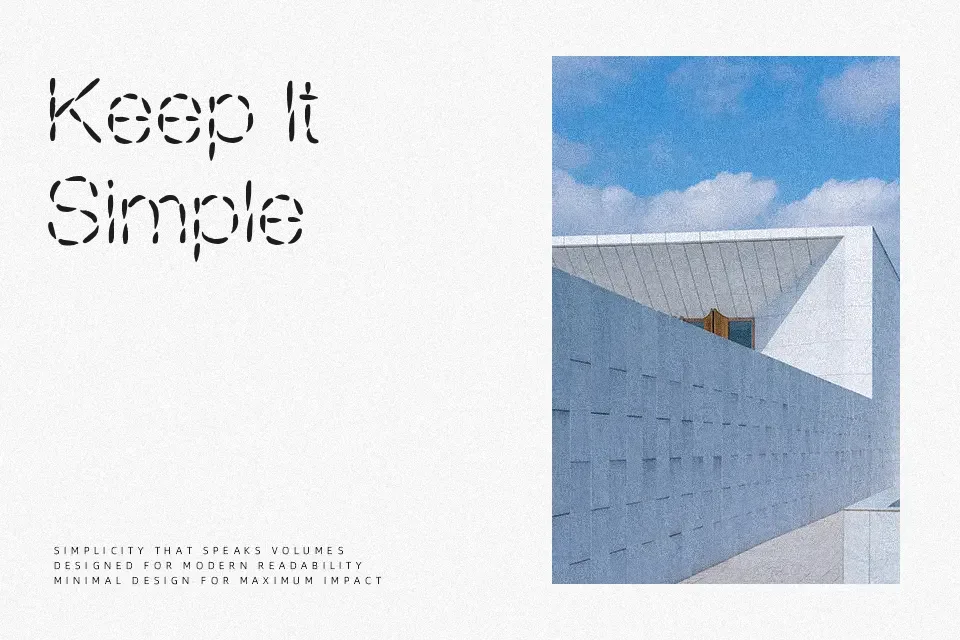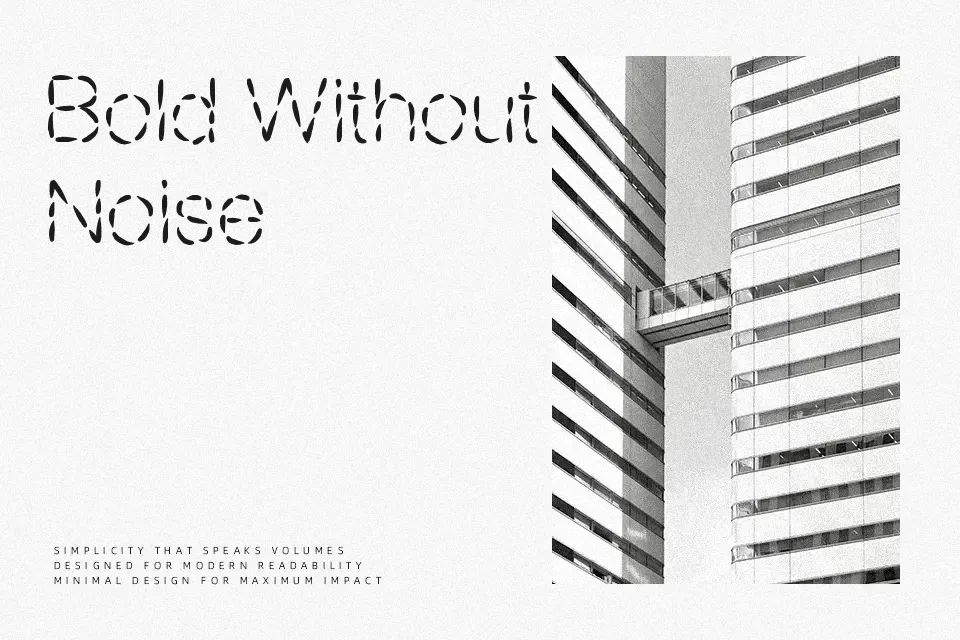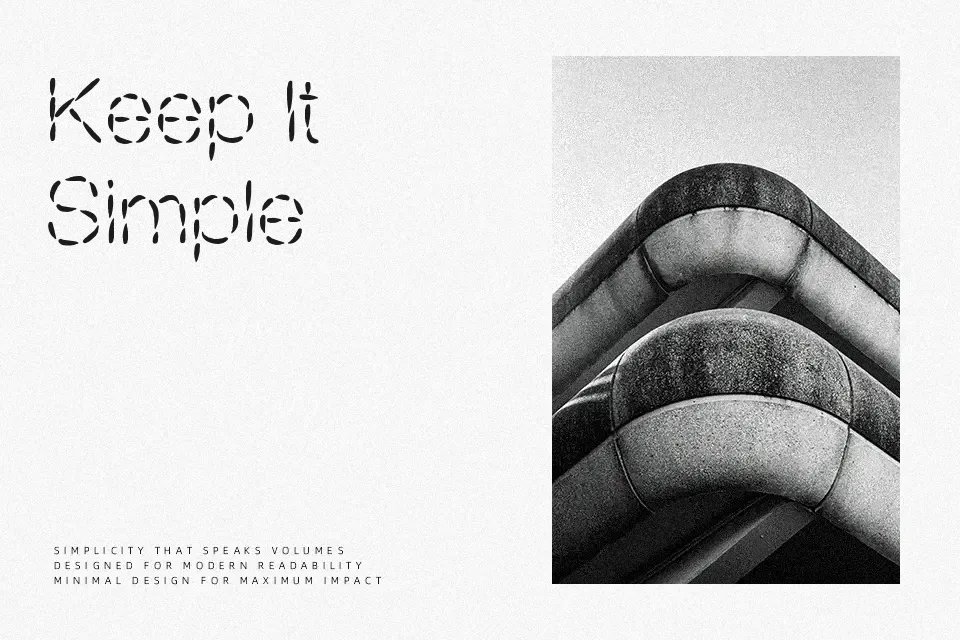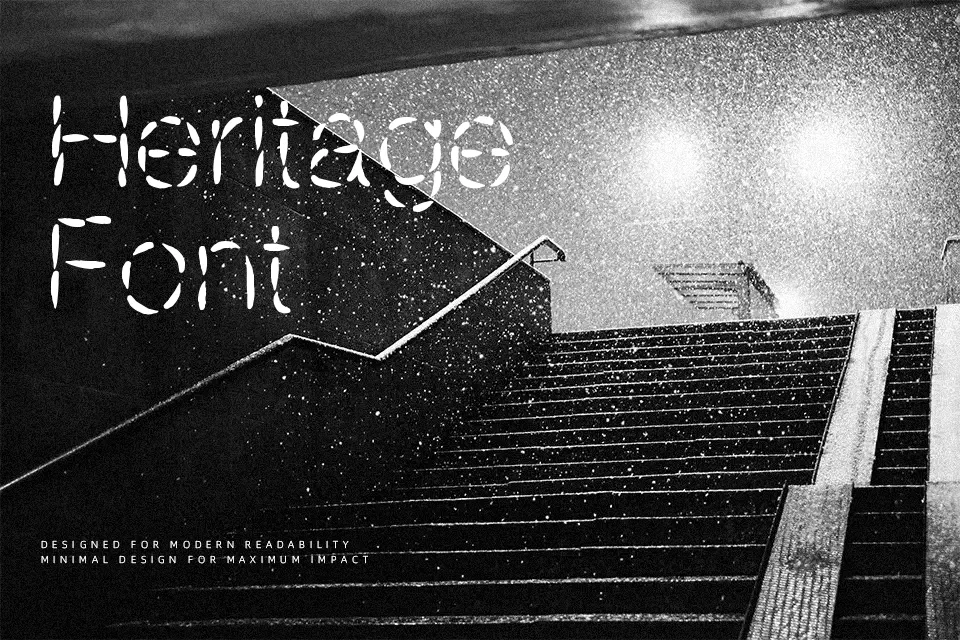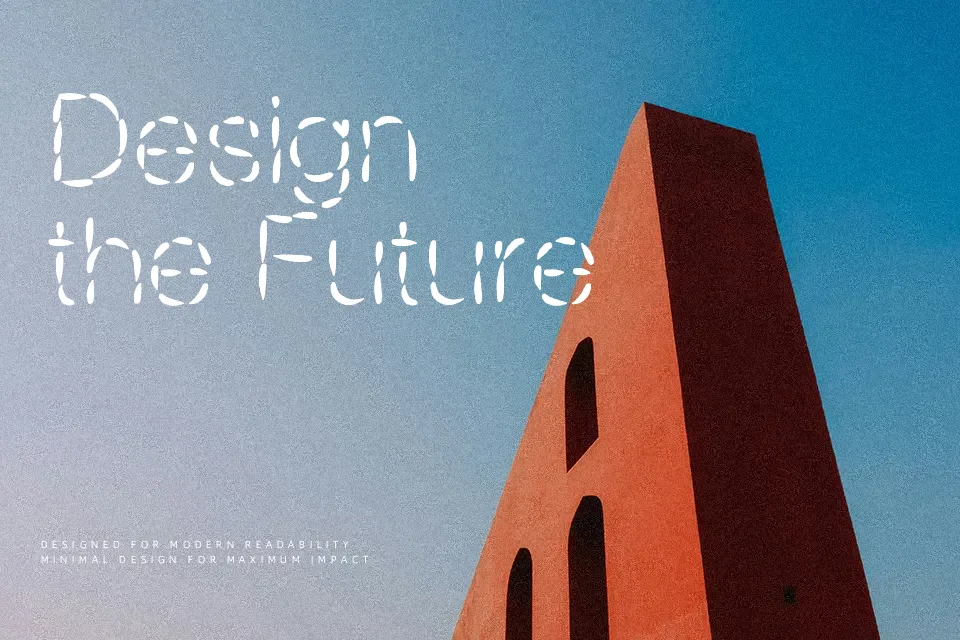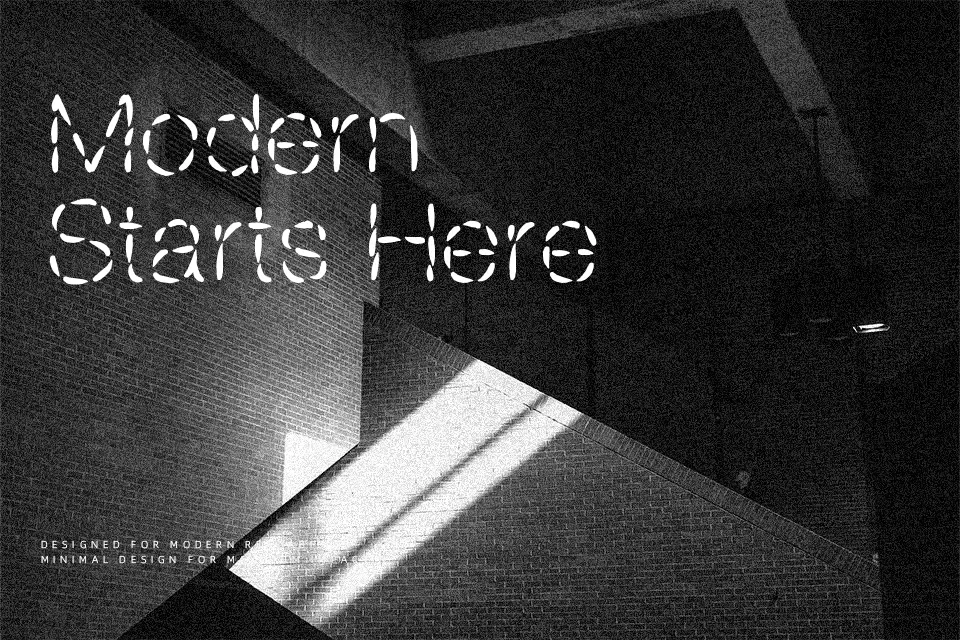
Sans Couture Font
Designed by Lionel Pailloncy
Sans Couture Font opens with an ultra-light sans serif skeleton characterized by delicate, uniform strokes and intermittent breaks that mimic fine stitching. Its generous letter spacing and balanced horizontal proportions give short text blocks a refined rhythm across large display formats. The minimal contrast and open apertures help preserve clarity at medium sizes, though the thin incisions compromise legibility in dense paragraph settings. This typeface performs best when displayed at headline scale where the decorative details remain distinct.
Best For: fashion lookbook headlines, luxury apparel packaging, modern art gallery posters, boutique brand marks
Not Ideal For: continuous body text, mobile interface captions, technical manuals, small legal disclaimers
Perfect for branding, fashion, and headline, with a clean and decorative style.